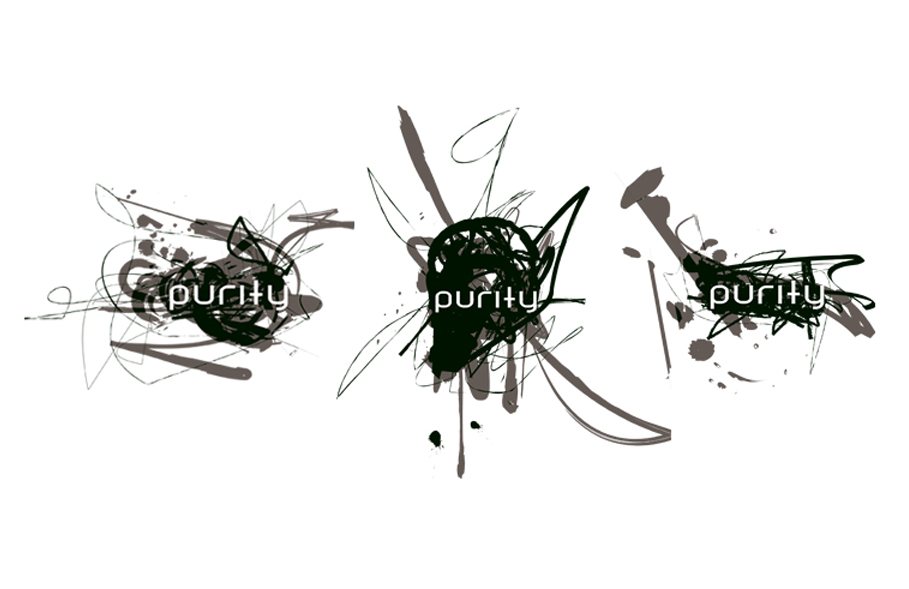
Identity for a through the line design agency, whose key motivation was to be the clarity cutting through the visual clutter and noise. Project included developing a range of organic illustrations and an adapted font.
Purity - typeface and identity